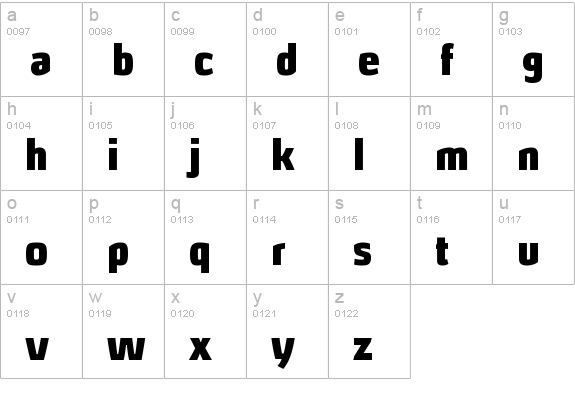
Hybrea UltraBlack is a bold and striking font that commands attention with its powerful and modern aesthetic. Its thick, heavy strokes convey strength and authority, making it perfect for headlines, posters, and other design projects that require a strong visual impact. The sleek and streamlined design of Hybrea UltraBlack exudes confidence and sophistication, making it a versatile choice for a wide range of creative applications. The best part is that Hybrea UltraBlack is available for free download at FontsMarket.com. This means that you can easily access this impressive font and use it in your projects without any cost. Whether you are a professional designer looking for a new typeface to elevate your work, or a hobbyist wanting to experiment with typography, Hybrea UltraBlack offers a high-quality option that won't break the bank. With its bold presence and contemporary style, Hybrea UltraBlack is sure to make a statement in any design project. Download it for free today and see how this versatile font can enhance your creative endeavors.